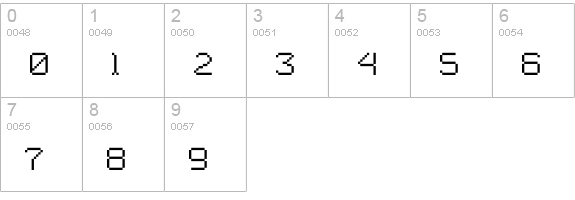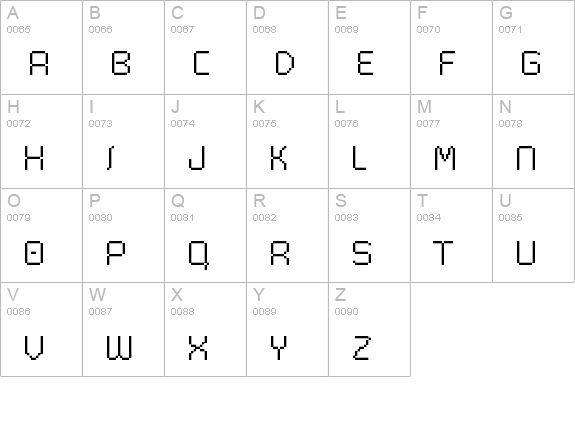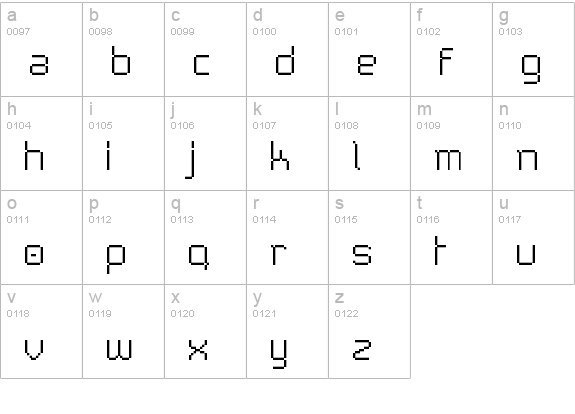
PixetlCondensed Font Details
PixetlCondensed font is a sleek and modern typeface that exudes sophistication and elegance. Its condensed design makes it perfect for creating eye-catching headings, titles, and branding materials. The clean lines and sharp edges of PixetlCondensed give it a professional and polished look that will elevate any design project. What sets PixetlCondensed apart is that it is available for free download at FontsMarket.com. This means that you can easily access this high-quality font without any cost, making it a valuable addition to your font collection. Whether you're designing a website, a poster, a logo, or any other creative project, PixetlCondensed is a versatile font that will help you achieve a stylish and sophisticated look. Download PixetlCondensed today and take your designs to the next level.